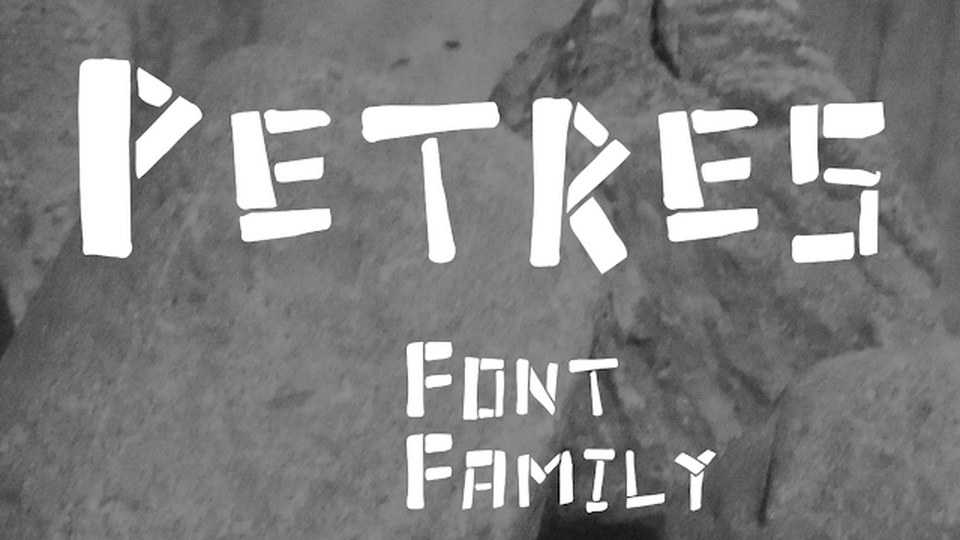
Download PVF_Petres is a square illustrated typeface using small caps for lower case characters. With its distressed stencil look PVF_Petres font is great for posters, kids books, games and illustrations.